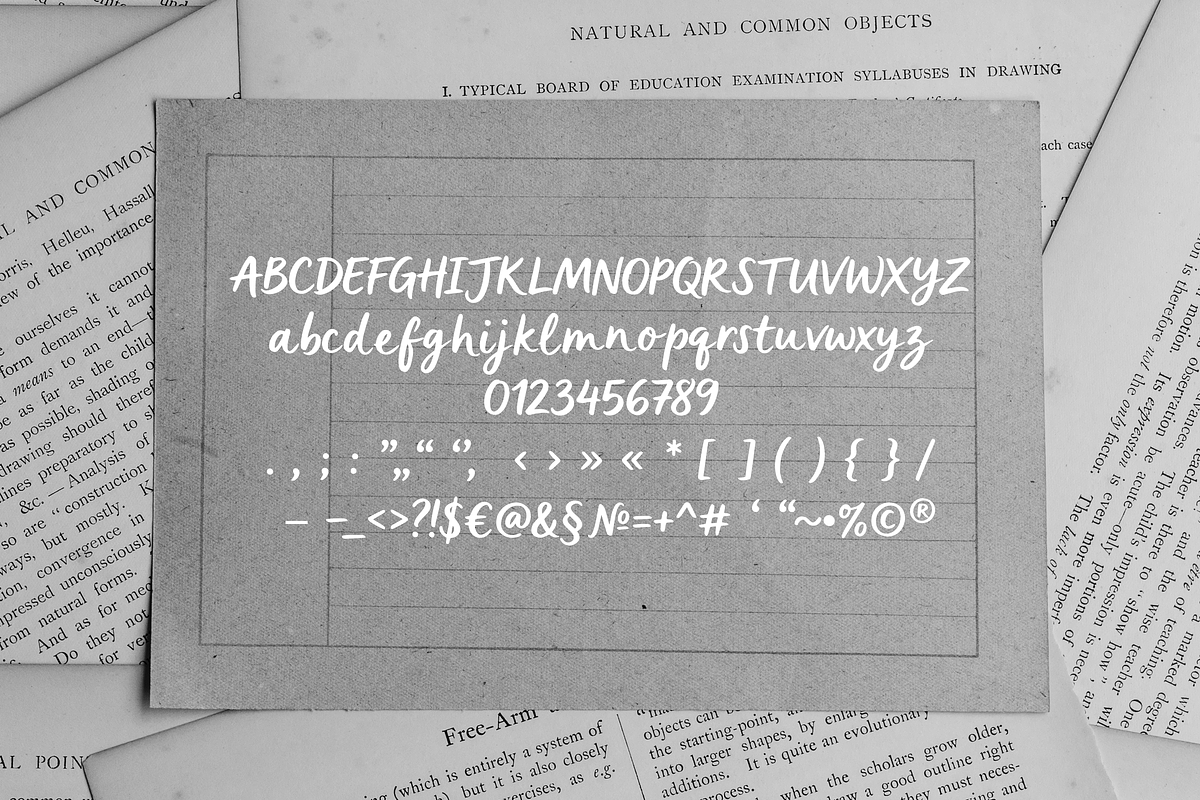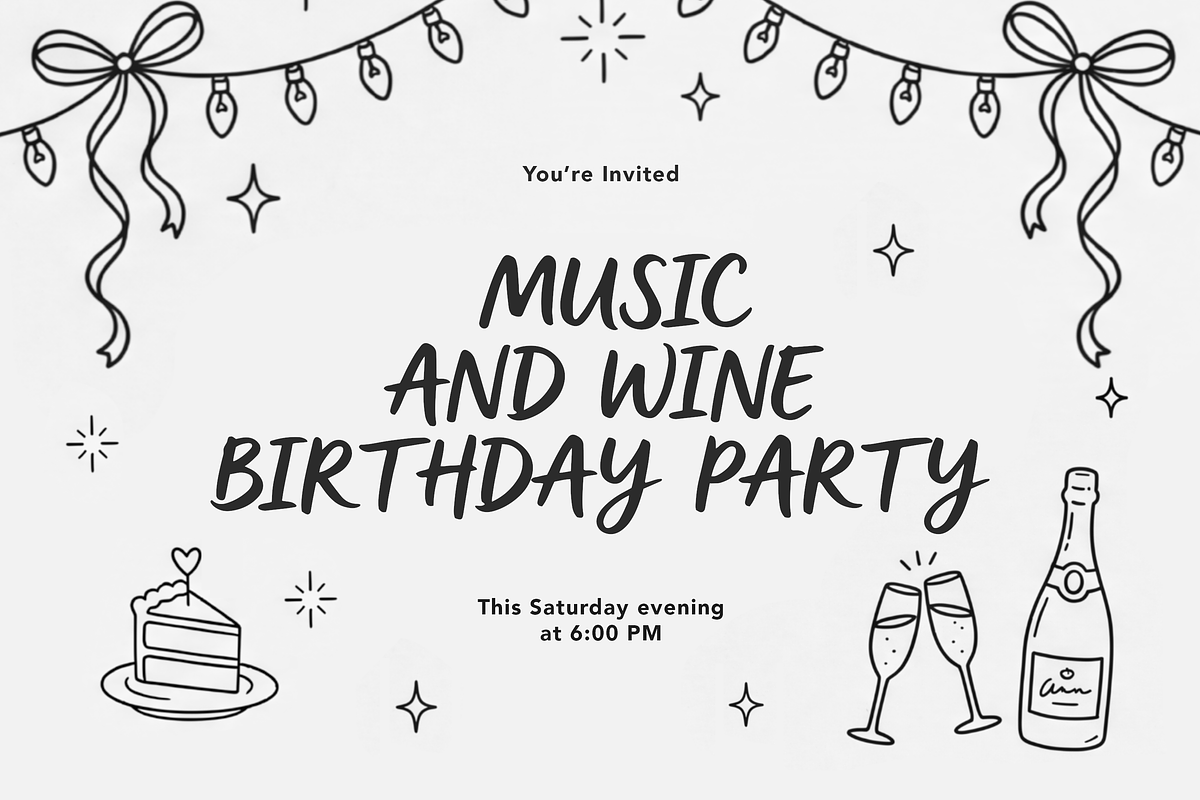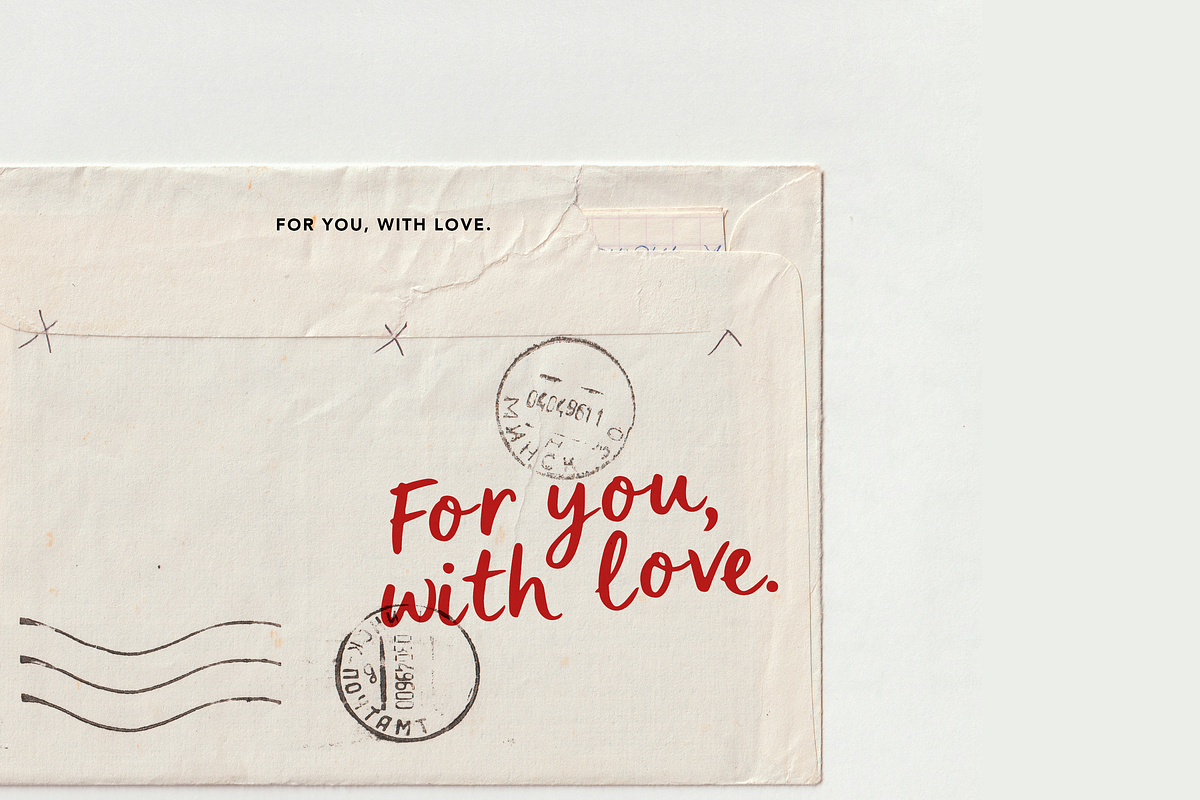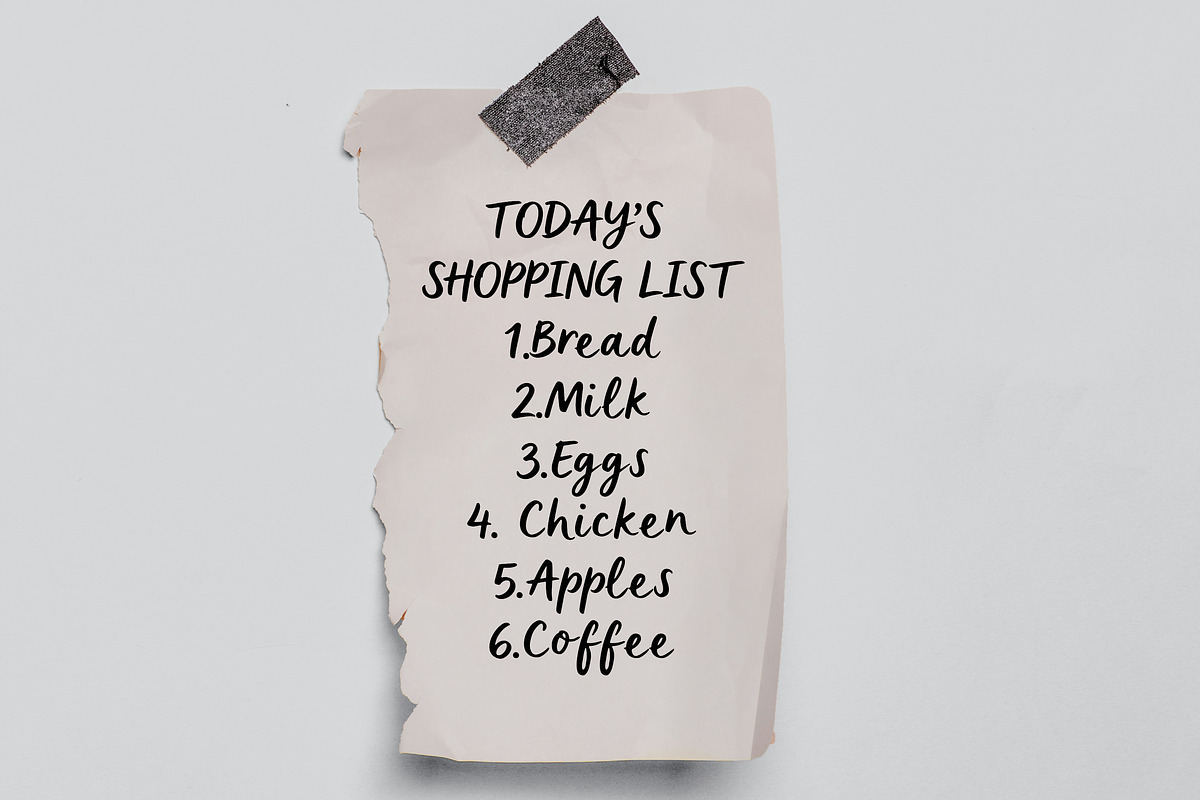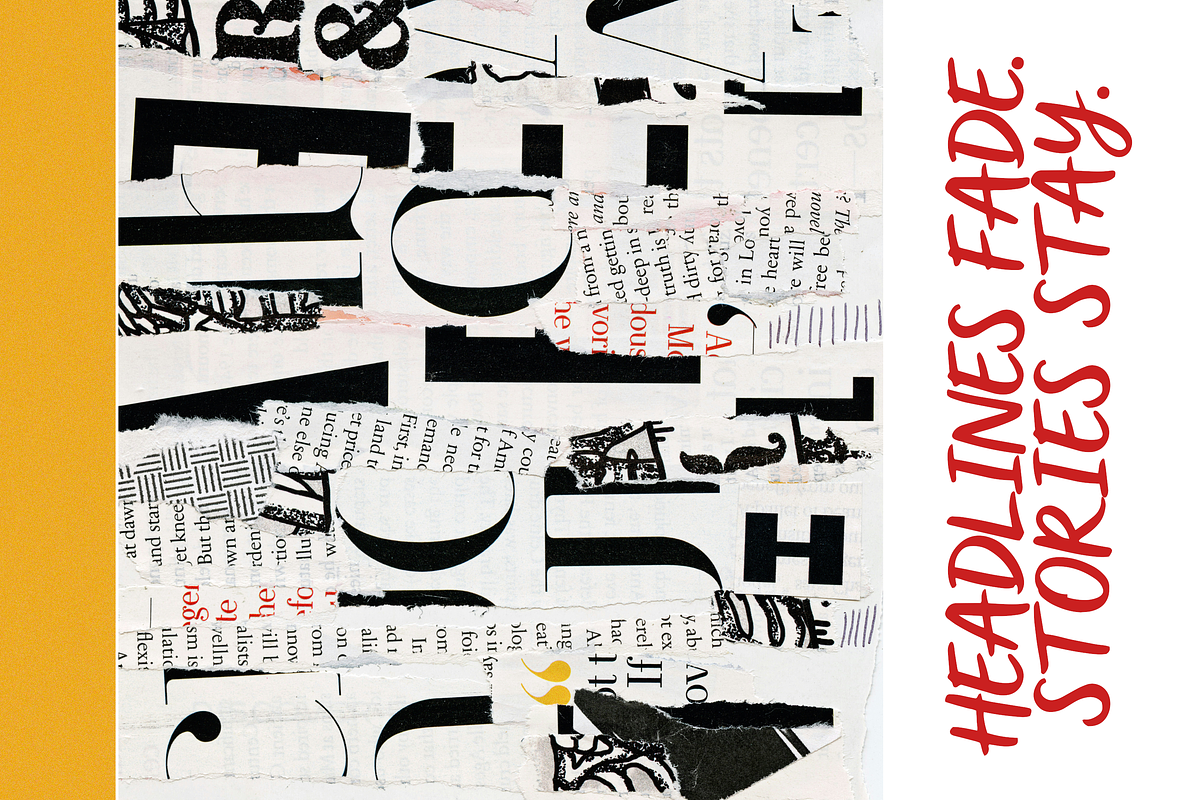
Dream Parchment Casual Font
Dream Parchment is a hand-drawn casual script font with a soft, natural flow — like quick notes in a notebook and dreamy journal pages. It’s warm, imperfect in the best way, and easy to read while still feeling personal.